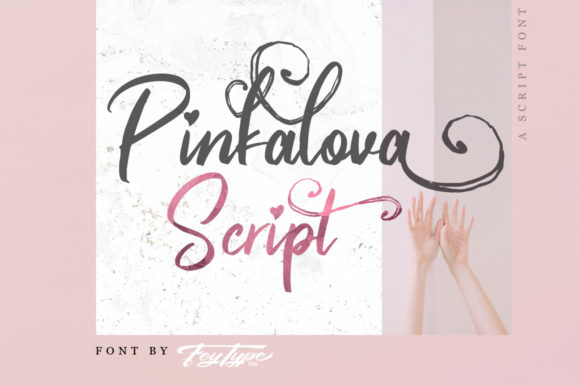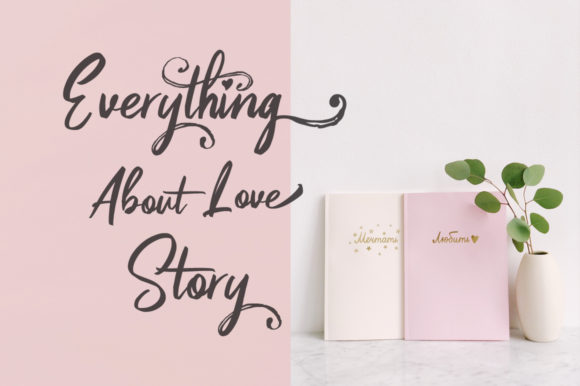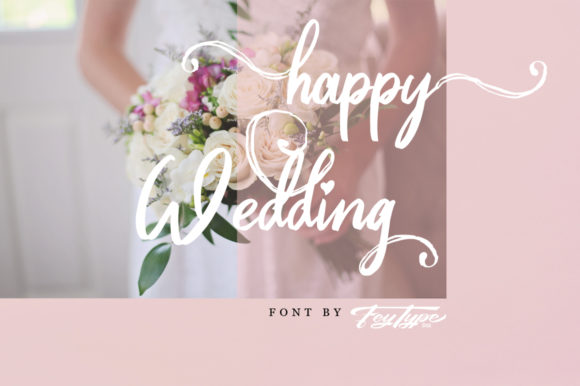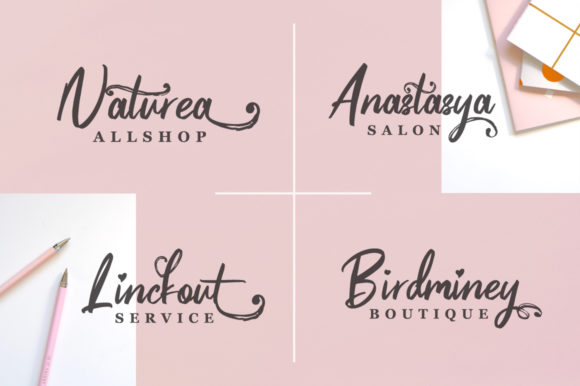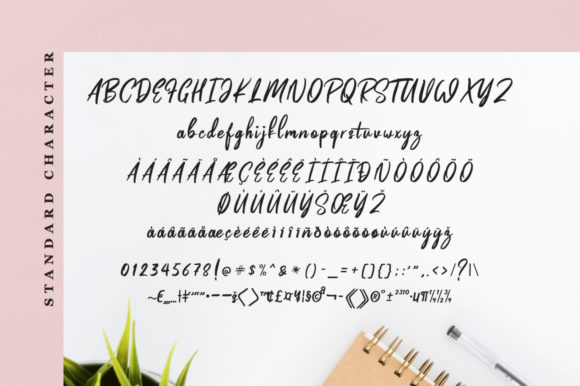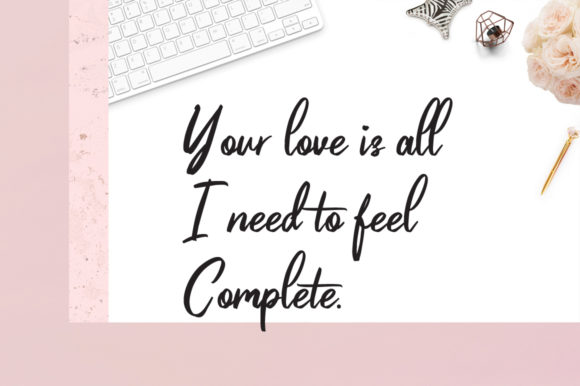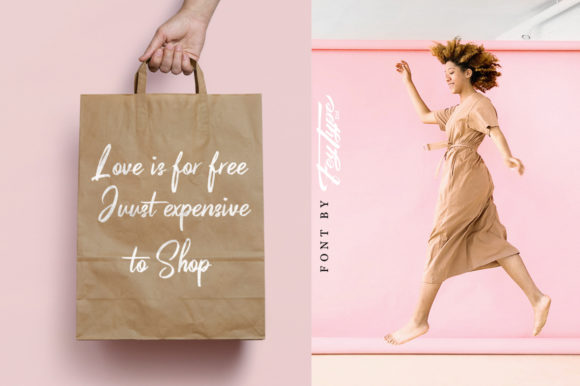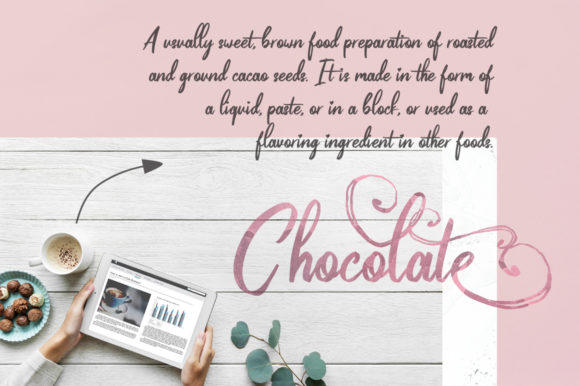
Pinkalova Font
About Pinkalova Font
Pinkalova is a beautiful script font that adds tons of character to your design. Fall in love with its curvy flourishes!